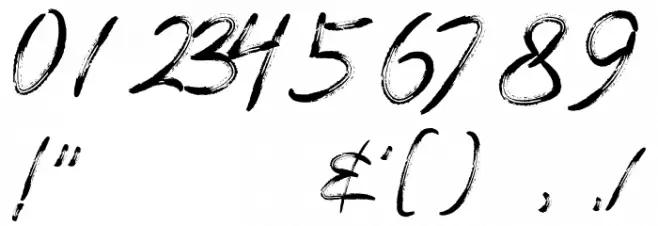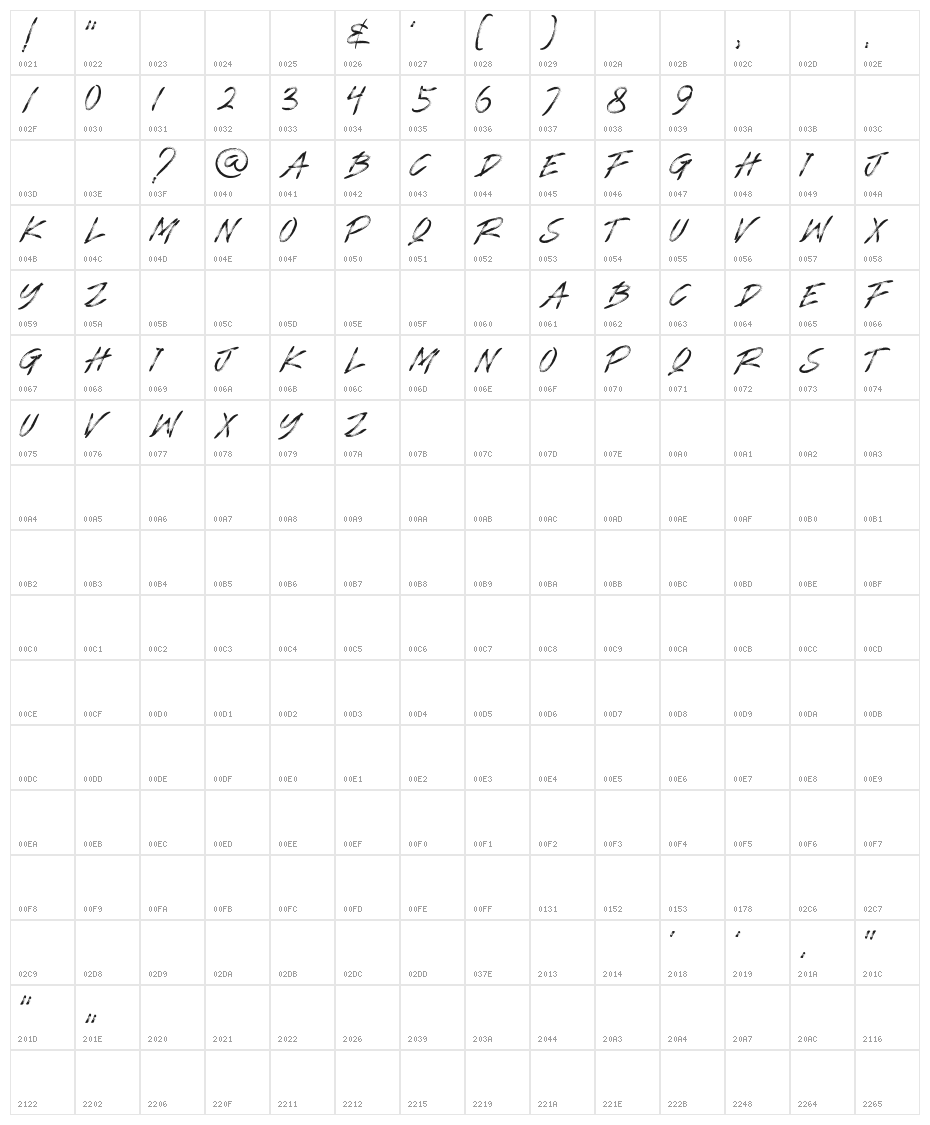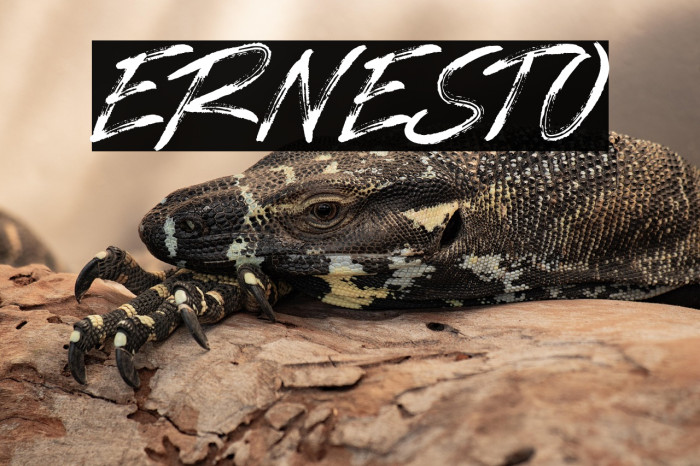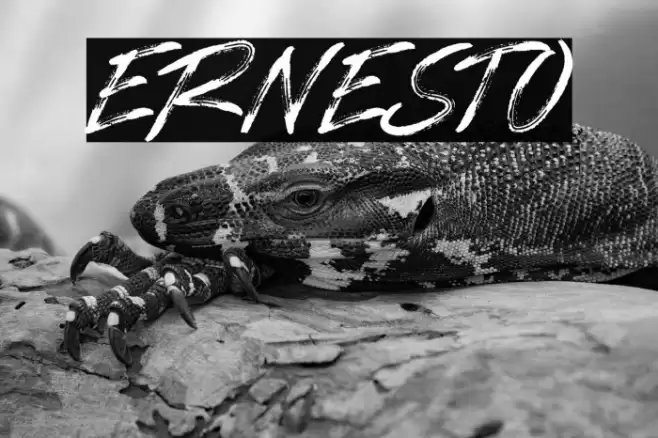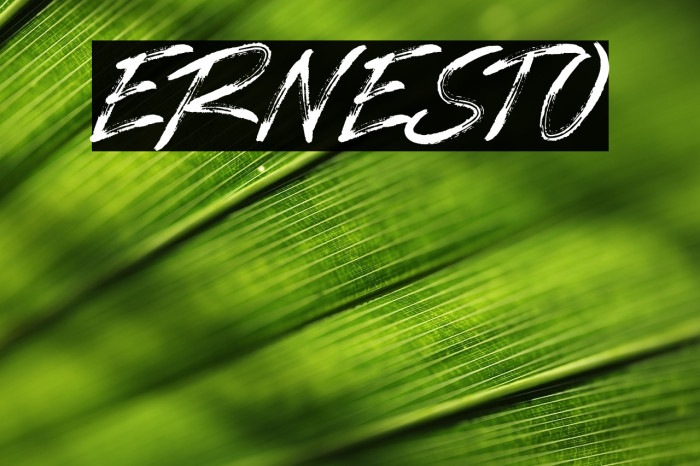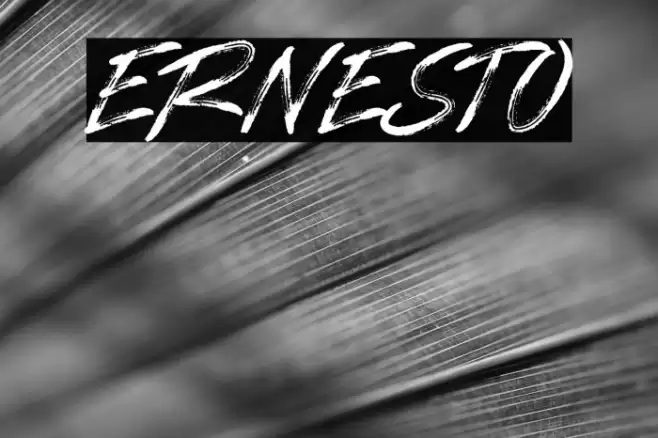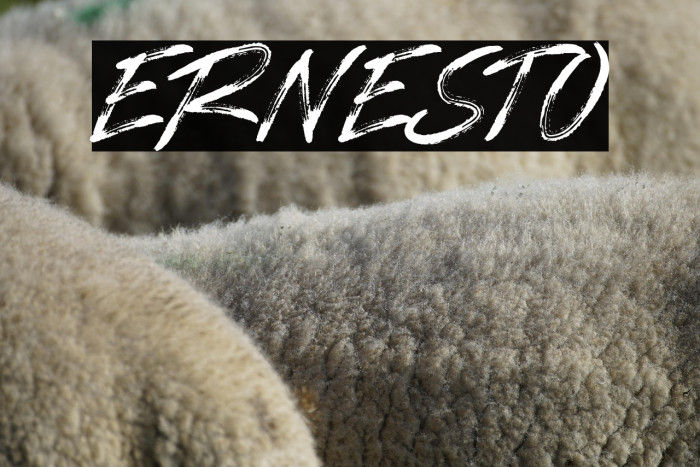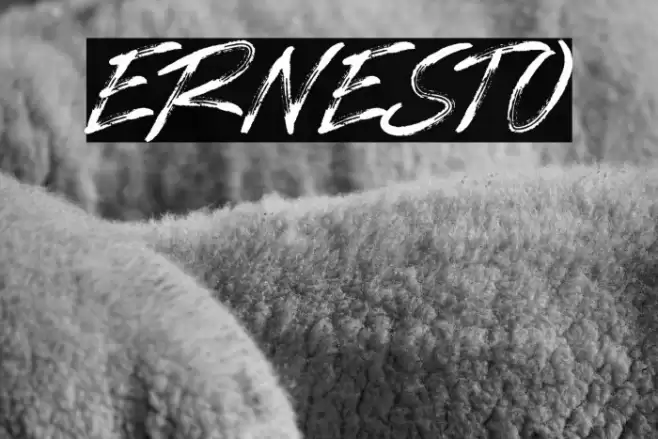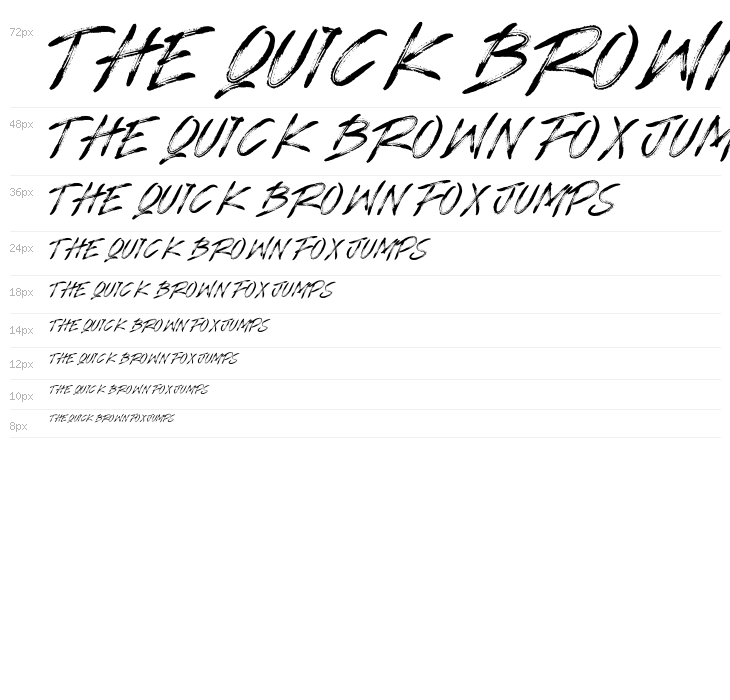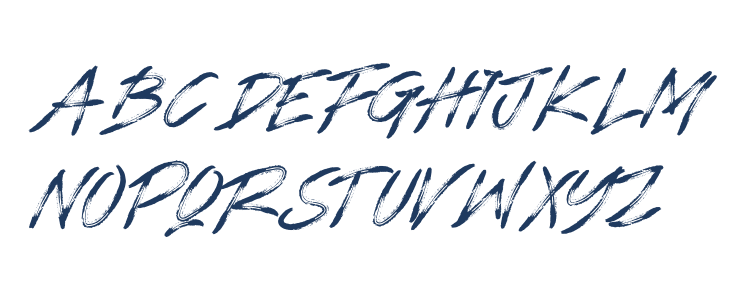
ERNESTO Font
ERNESTO Description
This font exhibits a dynamic and expressive handwritten style, characterized by its bold and energetic strokes. The letters are crafted with a brush-like texture, giving them a raw and artistic feel. The uppercase and lowercase letters maintain a consistent flow, while the numerals and special characters complement the overall aesthetic. The font's design is both modern and edgy, making it suitable for projects that require a personal touch or a creative flair. Its unique appearance ensures that it stands out, making it ideal for eye-catching designs.